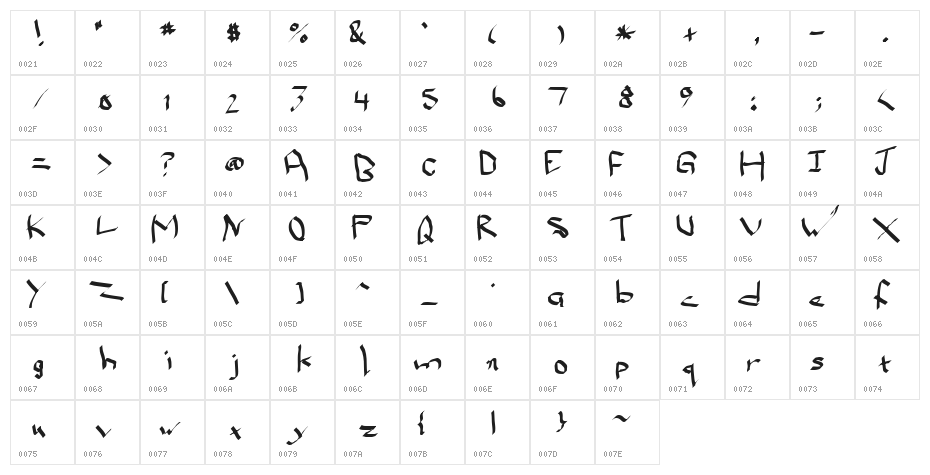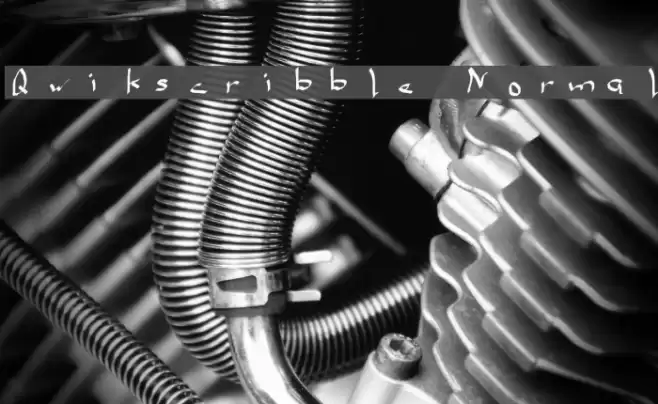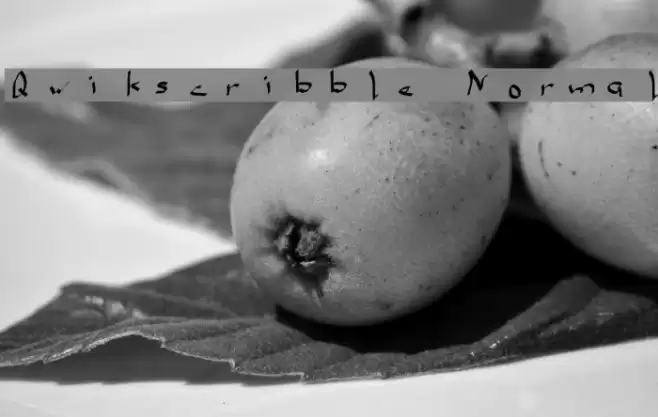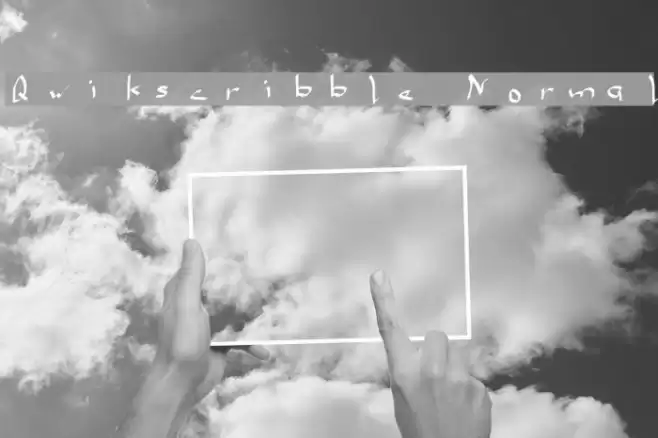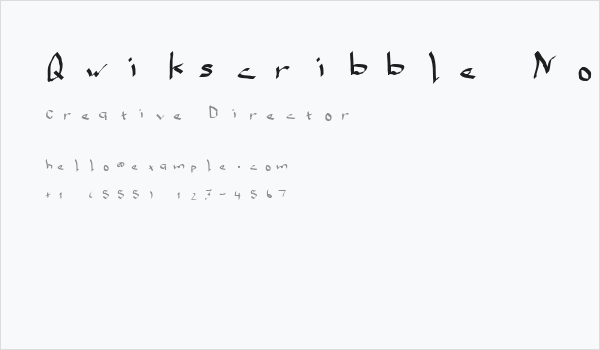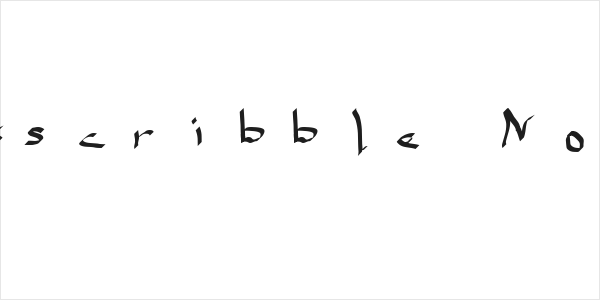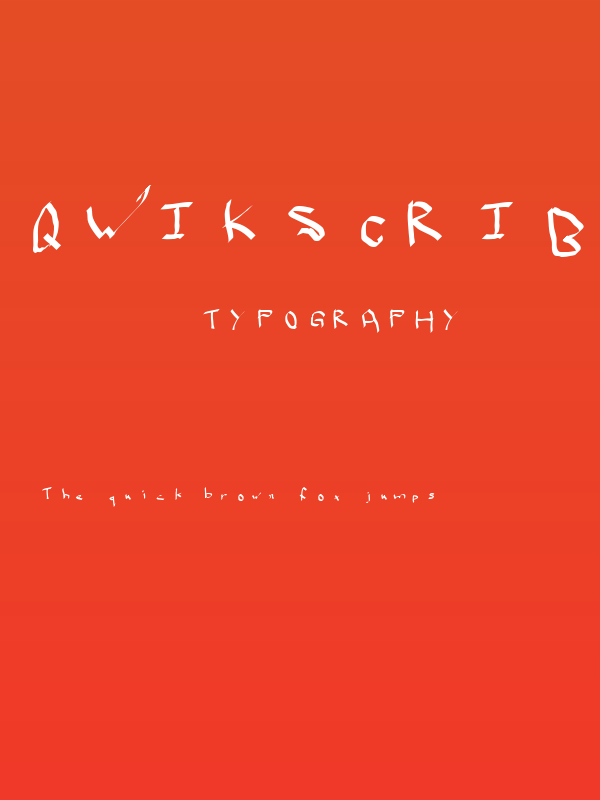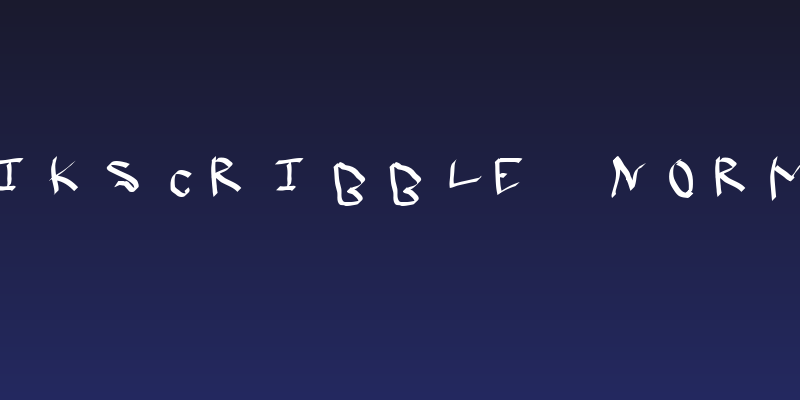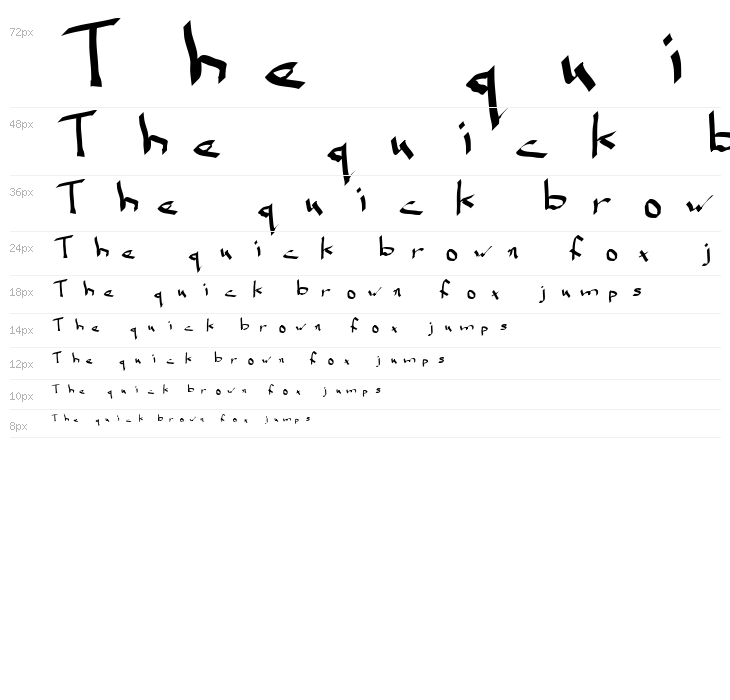
Qwikscribble Normal Font
Qwikscribble Normal Description
This font features a dynamic and energetic style, characterized by its sharp, angular strokes and irregular forms. The letters appear as if they were hastily scribbled, giving a sense of movement and spontaneity. The uppercase and lowercase letters maintain a consistent style, with jagged edges and varying line thicknesses that create a visually striking effect. Numbers and special characters follow the same aesthetic, enhancing the overall cohesion of the font. Its unique appearance makes it stand out, ideal for projects that require a bold and unconventional look.
QWIKSCRIBBLE-NORMAL UPPERCASE
QWIKSCRIBBLE-NORMAL LOWERCASE
QWIKSCRIBBLE-NORMAL OTHER CHARS
| Proposed Projects | Ideal for creative projects such as album covers, posters, graffiti art, or any design that seeks to convey energy and spontaneity. |